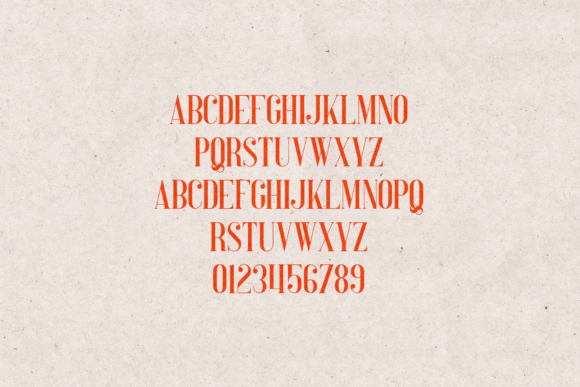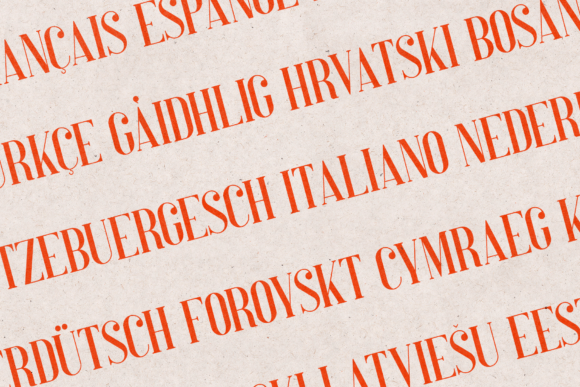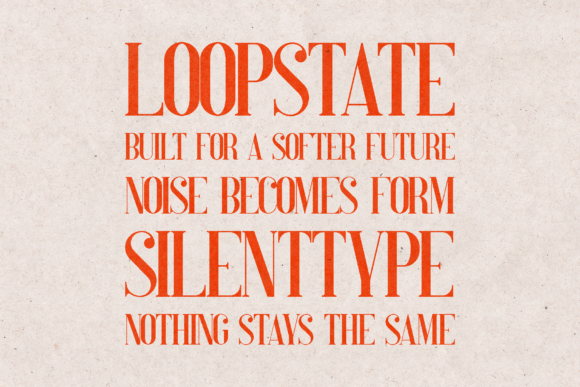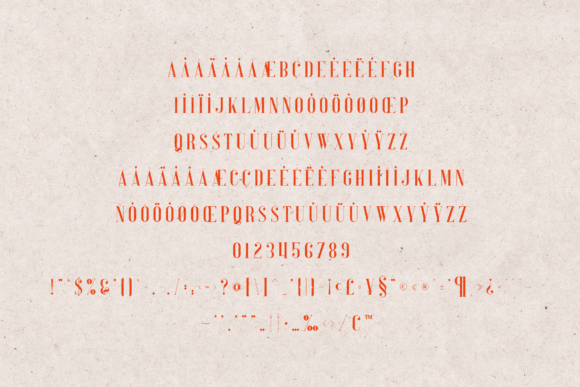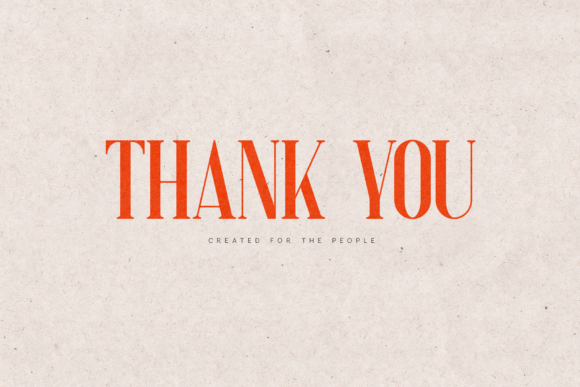
Introduction to Perfectly Splendid Font
Redefine classic sophistication with Perfectly Splendid, a high-contrast serif font designed for the modern fashionista.
Featuring razor-thin stems and sharp, delicate serifs, this typeface reimagineโs traditional editorial styles through a contemporary lens Its condensed structure allows for striking, tall headers that evoke the feeling of high-end magazine mastheads and avant-garde catalogs.